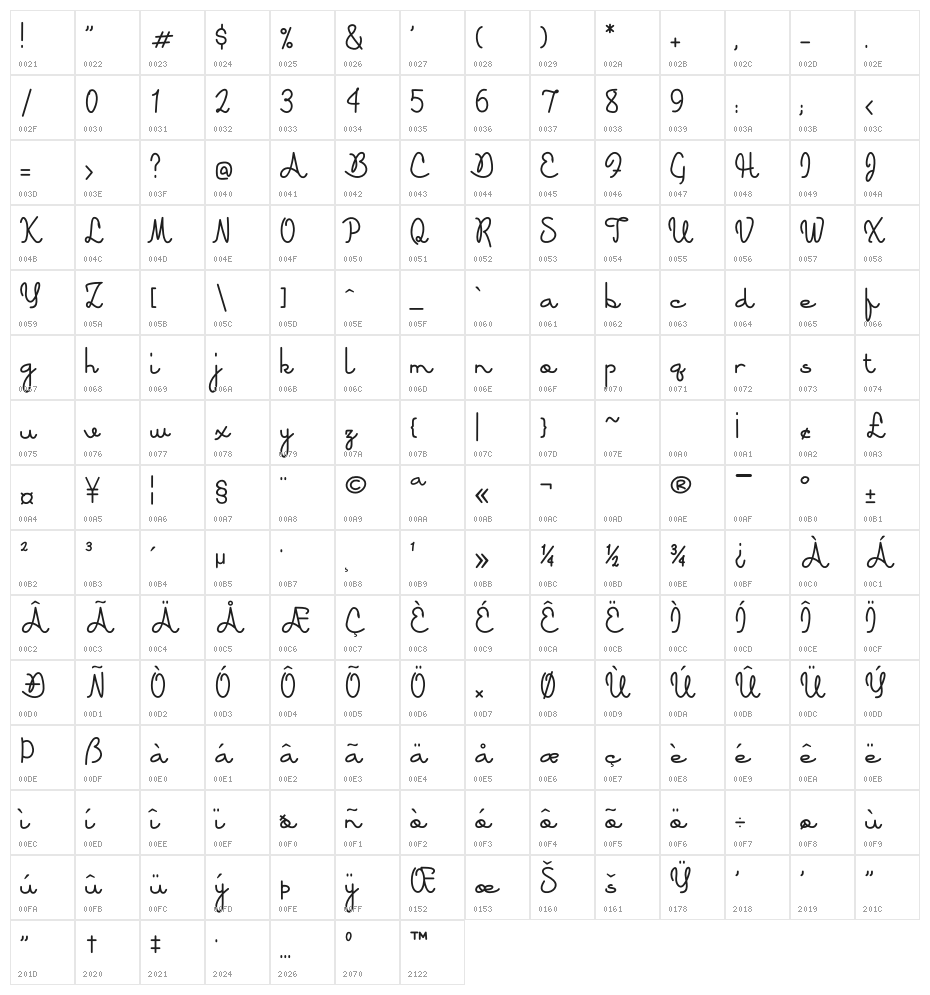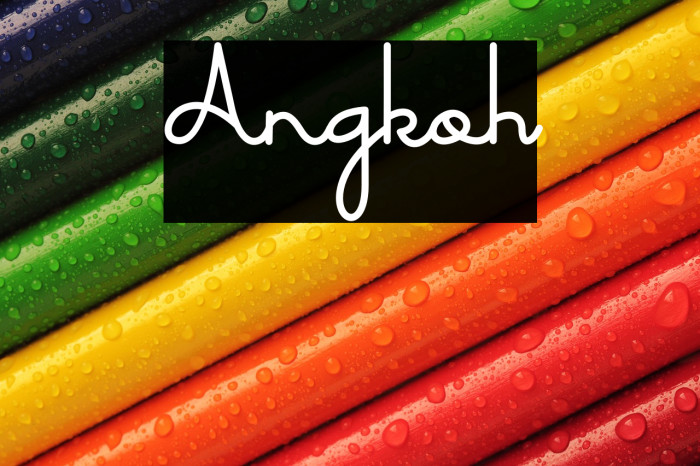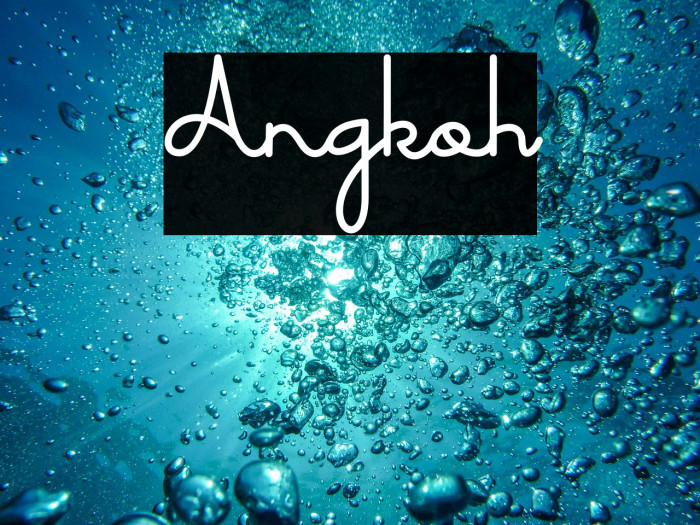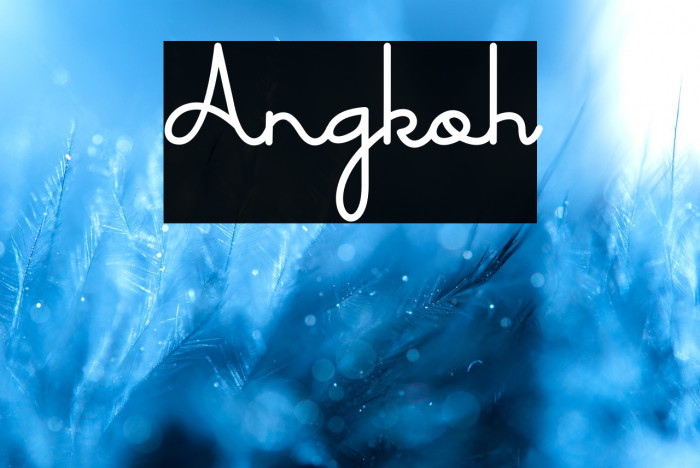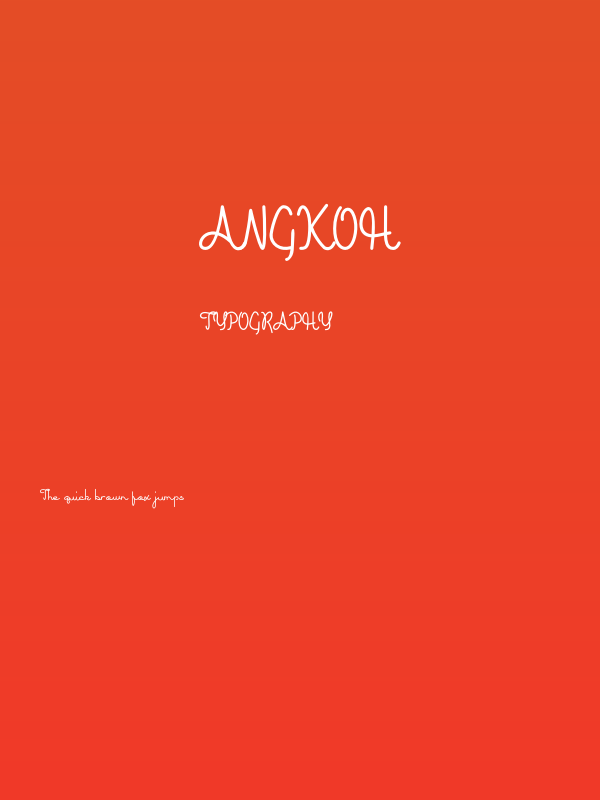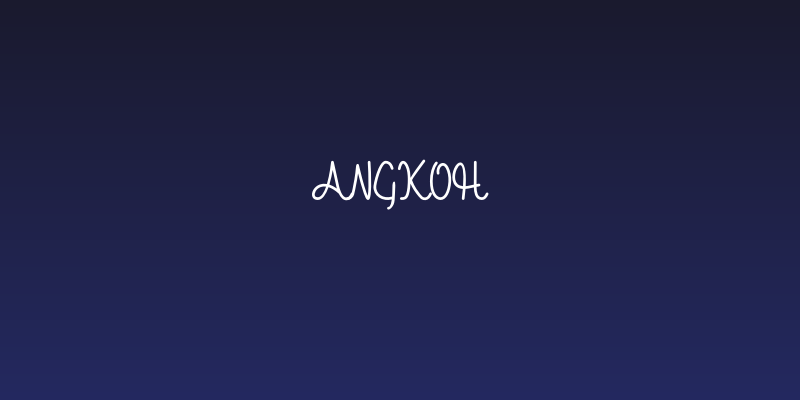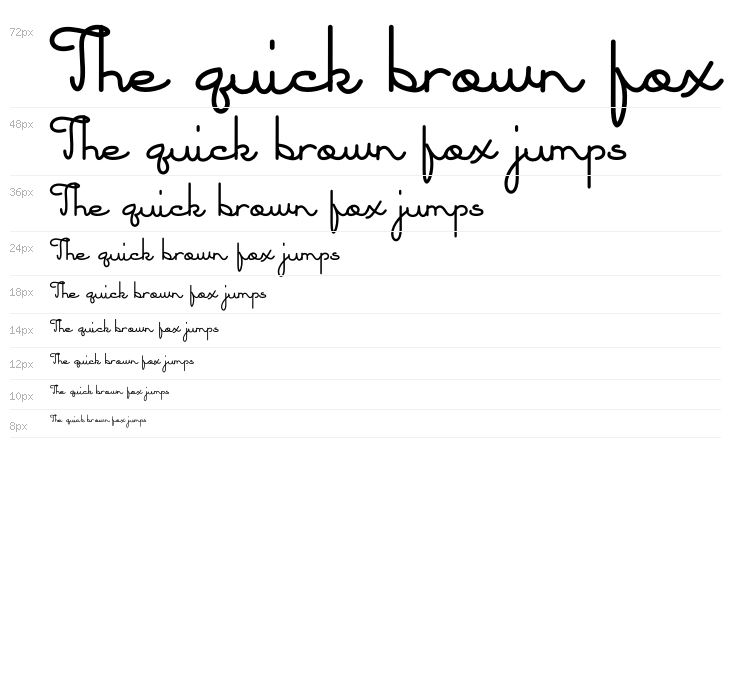
Angkoh Font
Angkoh Description
This font features a playful and casual script style with a handwritten appearance. The letters are interconnected with smooth, flowing lines, giving it a lively and dynamic feel. The uppercase and lowercase letters maintain a consistent style, with rounded edges and a slight slant, enhancing its informal look. The numerals and special characters follow the same aesthetic, ensuring uniformity across all glyphs. This font is ideal for projects that require a personal touch, such as invitations, greeting cards, or creative branding.
| Overall Style | Casual, Playful |
| Use Case | Headlines, Logos, Invitations |
| Proposed Projects | Ideal for invitations, greeting cards, personal branding, and creative projects. |